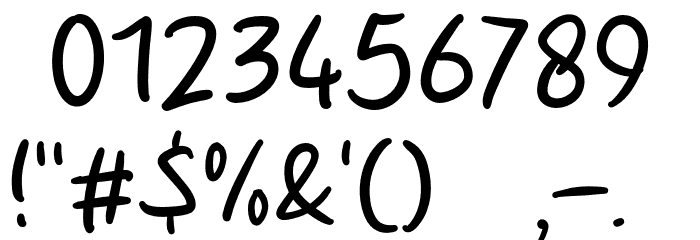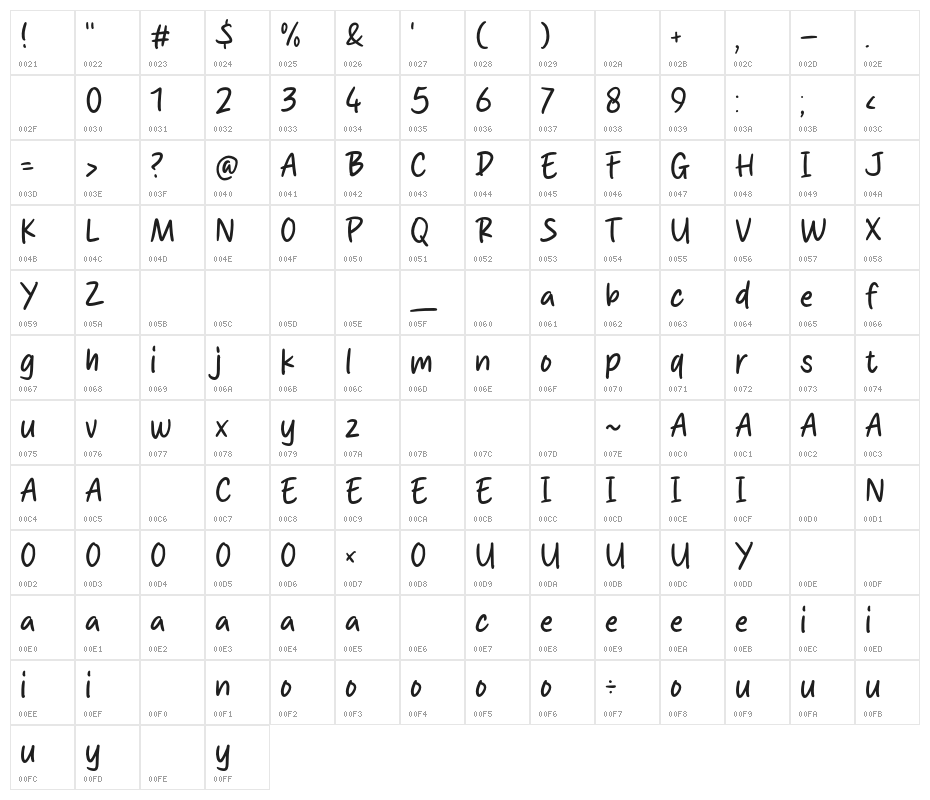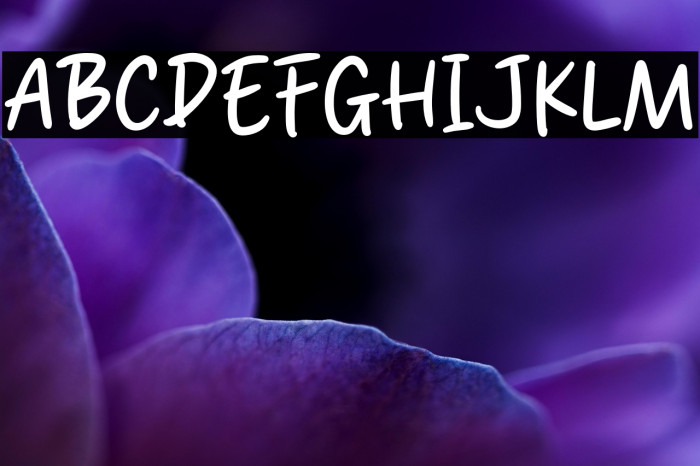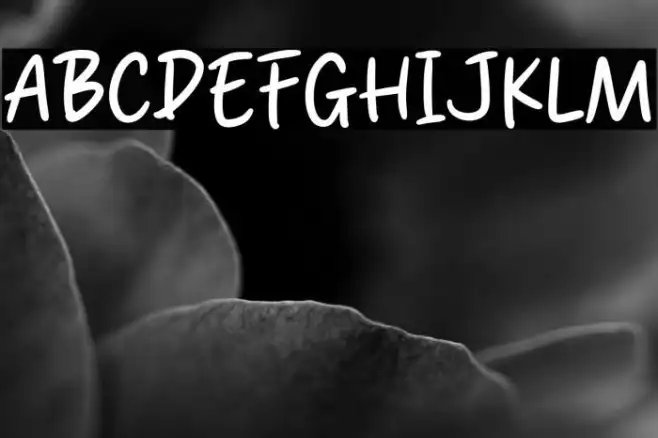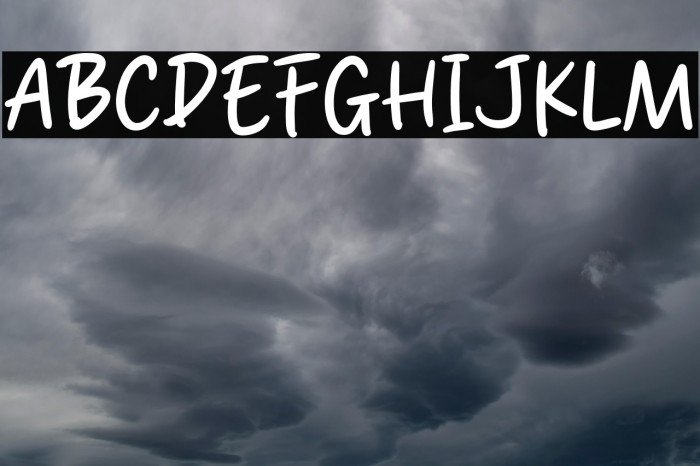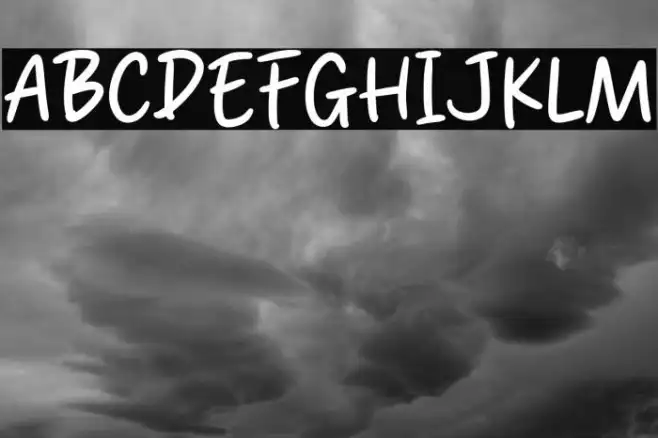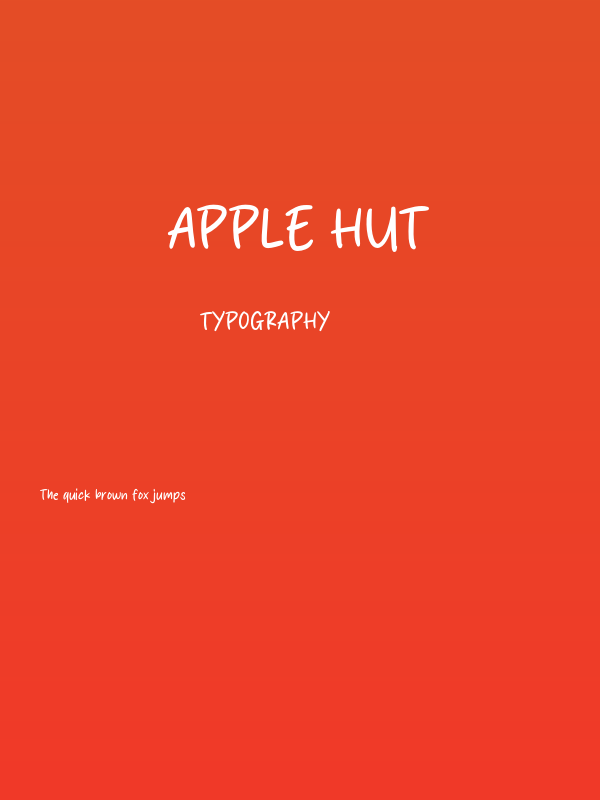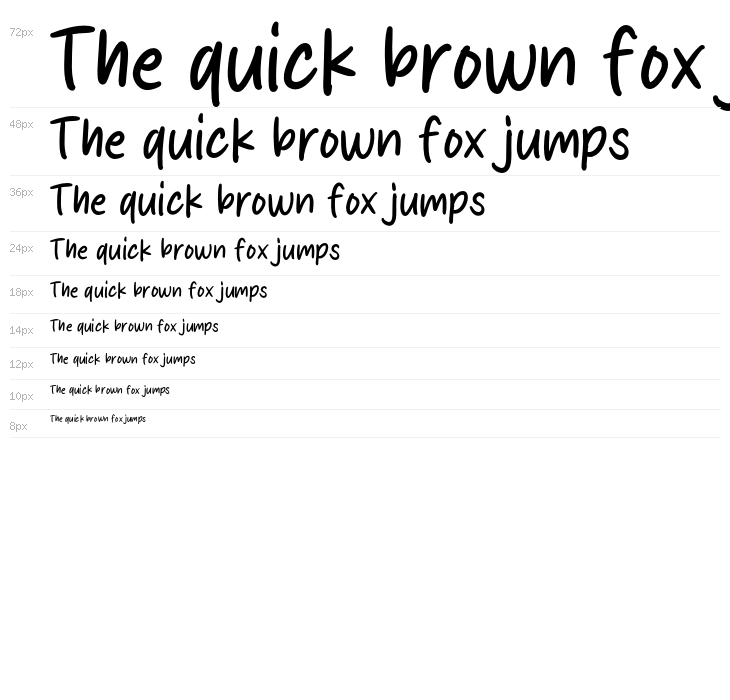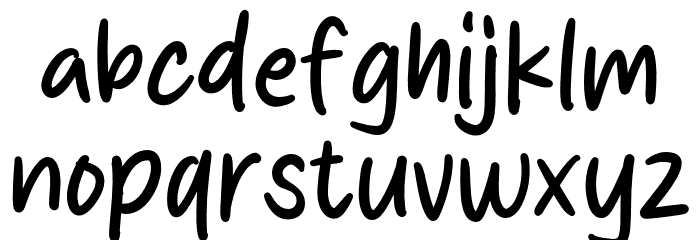
Apple Hut Font
Apple Hut Description
This font features a playful and casual handwritten style, characterized by its smooth, flowing strokes and slightly irregular shapes. The letters have a natural, organic feel, with rounded edges and a consistent stroke width that gives it a friendly and approachable appearance. The uppercase and lowercase letters maintain a cohesive look, while the numerals and special characters complement the overall design. This font's informal style makes it suitable for projects that require a personal touch or a relaxed vibe.
| Use Case | Headlines, Casual text, Personal projects |
| Proposed Projects | Ideal for greeting cards, invitations, personal blogs, and casual branding projects. |